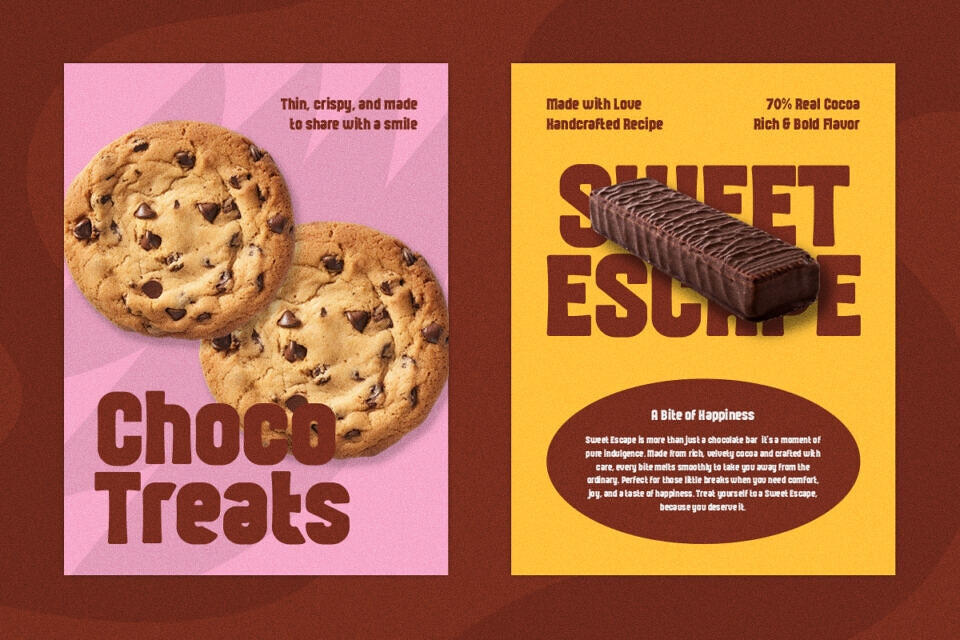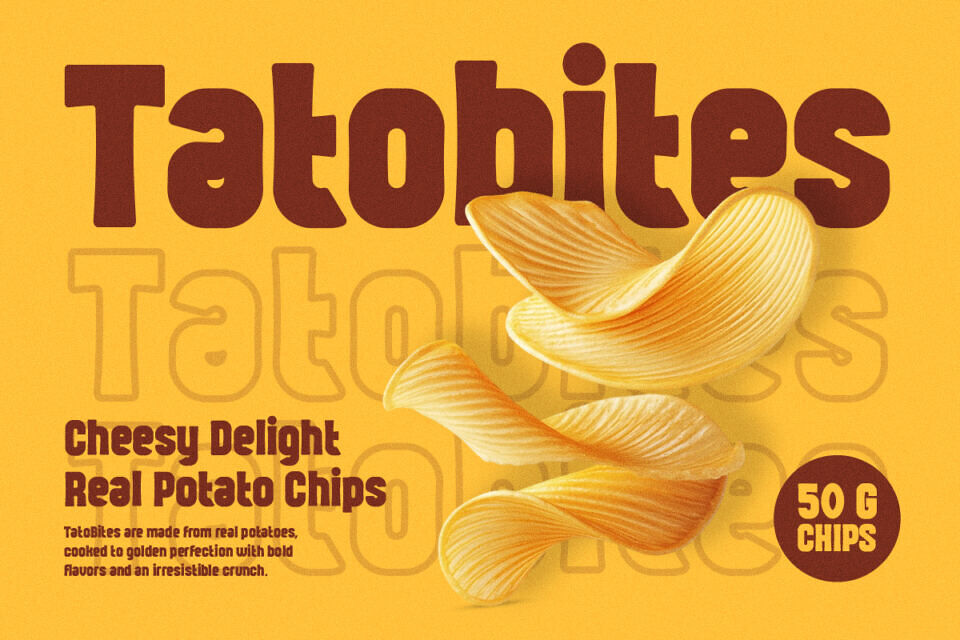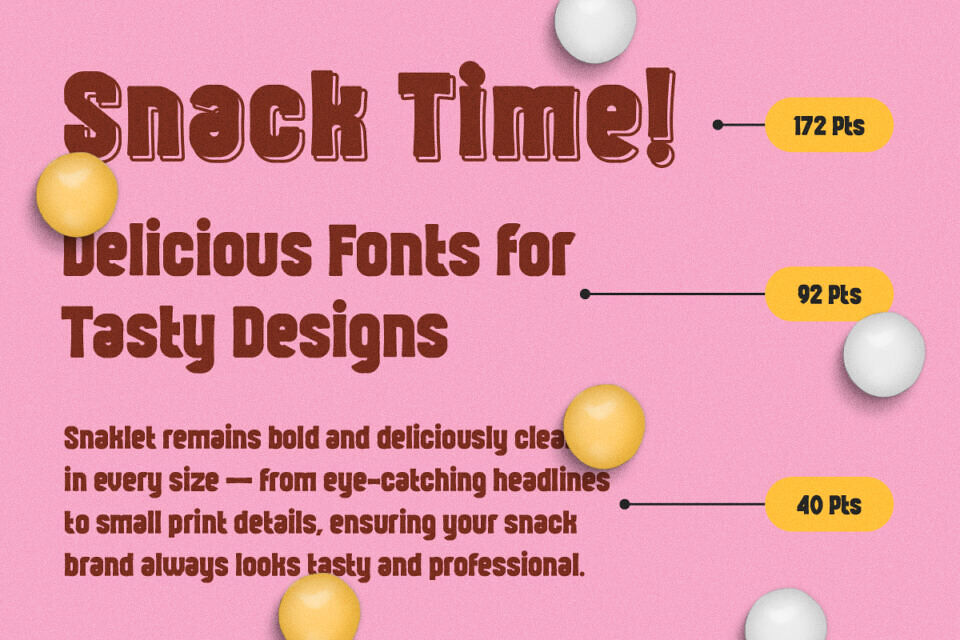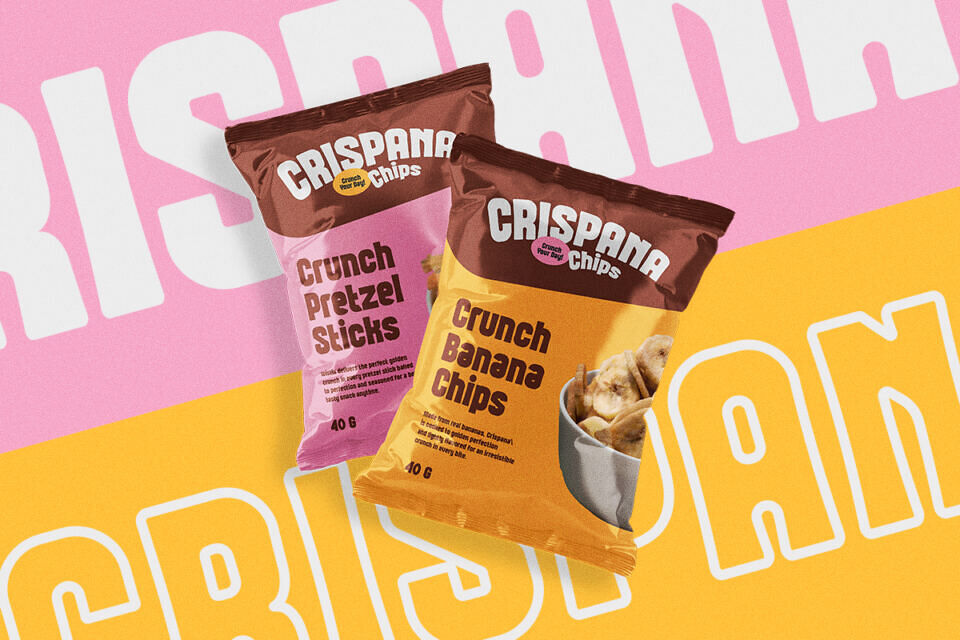
Snaklet Pop Font
Snaklet is a bold handwritten display font crafted to elevate snack and dessert packaging with a flavorful and friendly vibe. Its chunky curves and dynamic strokes give off a deliciously playful and energetic feel—perfect for catching eyes on shelves or scrolling screens.